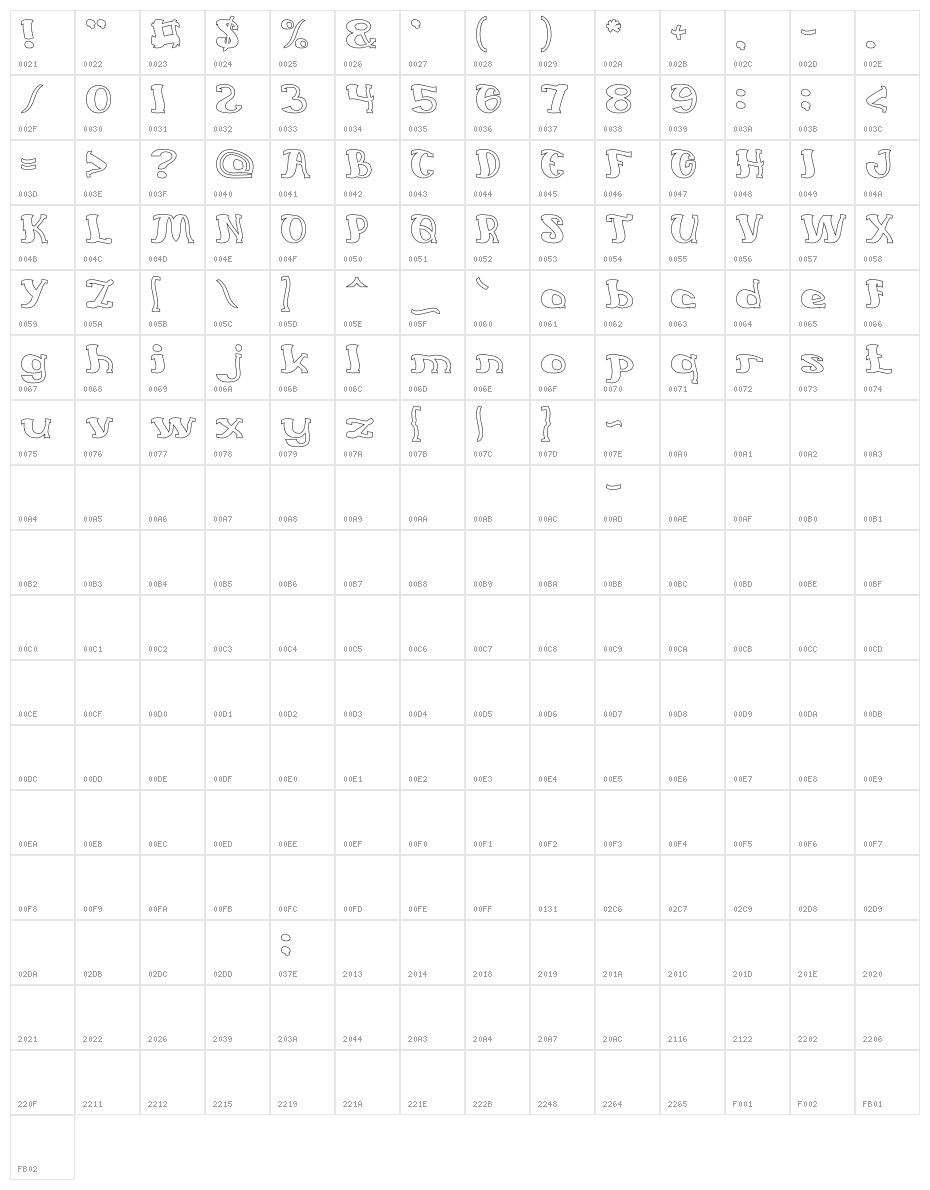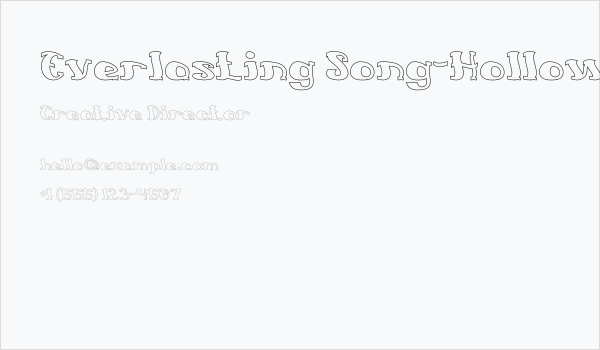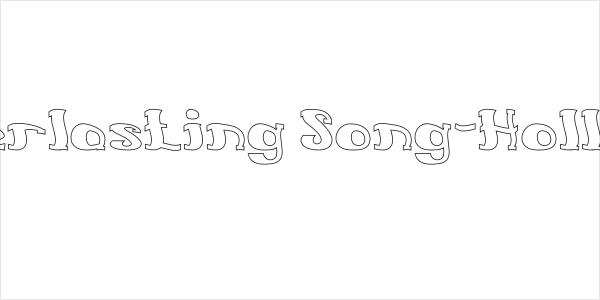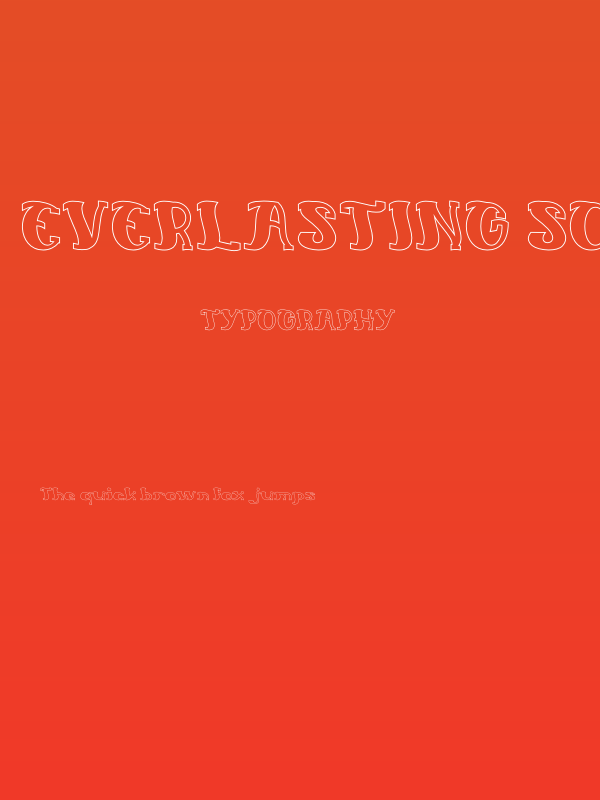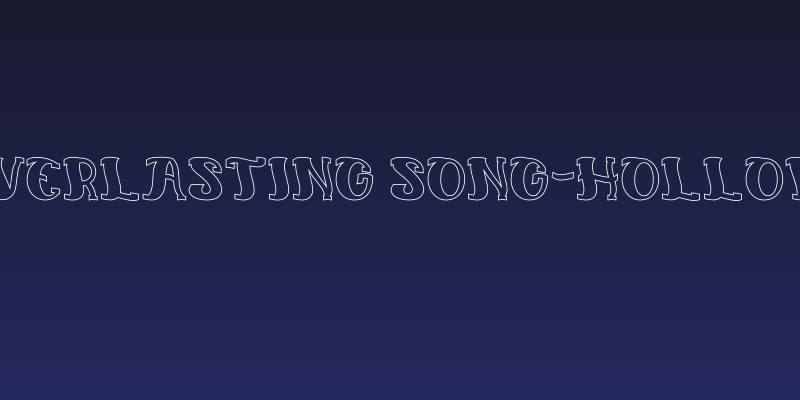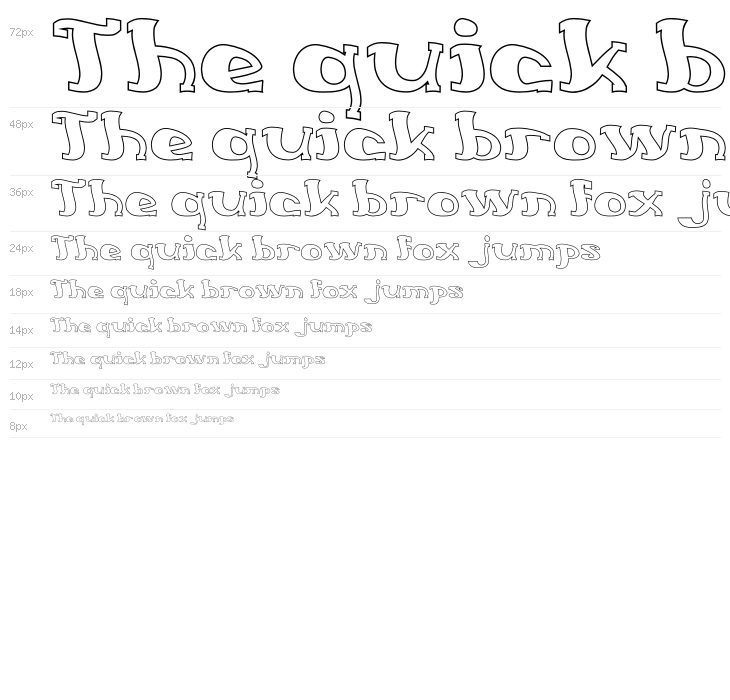
Everlasting Song-Hollow Font
Everlasting Song-Hollow Description
This font features a playful and whimsical design with hollow, outlined characters that give it a unique and eye-catching appearance. The letters have a hand-drawn quality, with irregular curves and varying line thicknesses that add to its charm. The uppercase and lowercase letters maintain a consistent style, while the numbers and special characters are equally distinctive, enhancing the font's overall cohesive look. This font is ideal for projects that require a fun and informal touch, making it suitable for creative and artistic applications.
| Overall Style | Whimsical |
| Proposed Projects | Ideal for children's book covers, playful posters, greeting cards, and creative branding. |